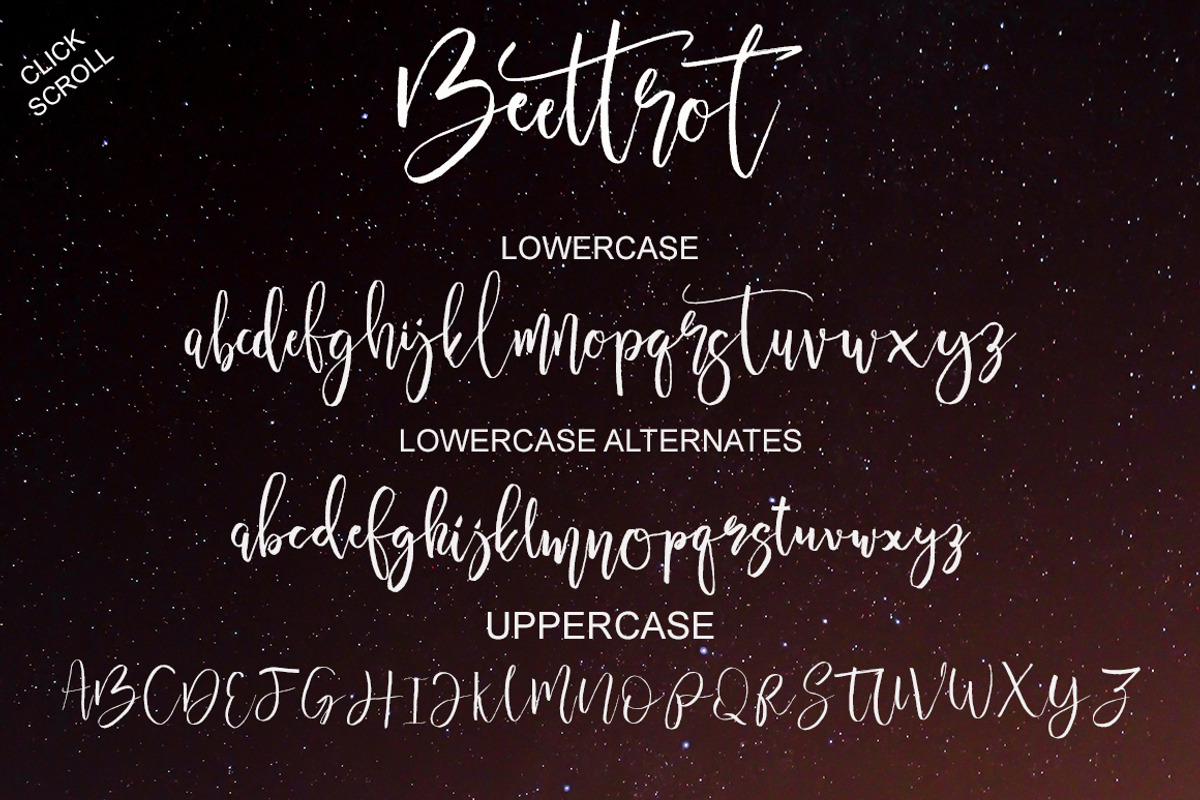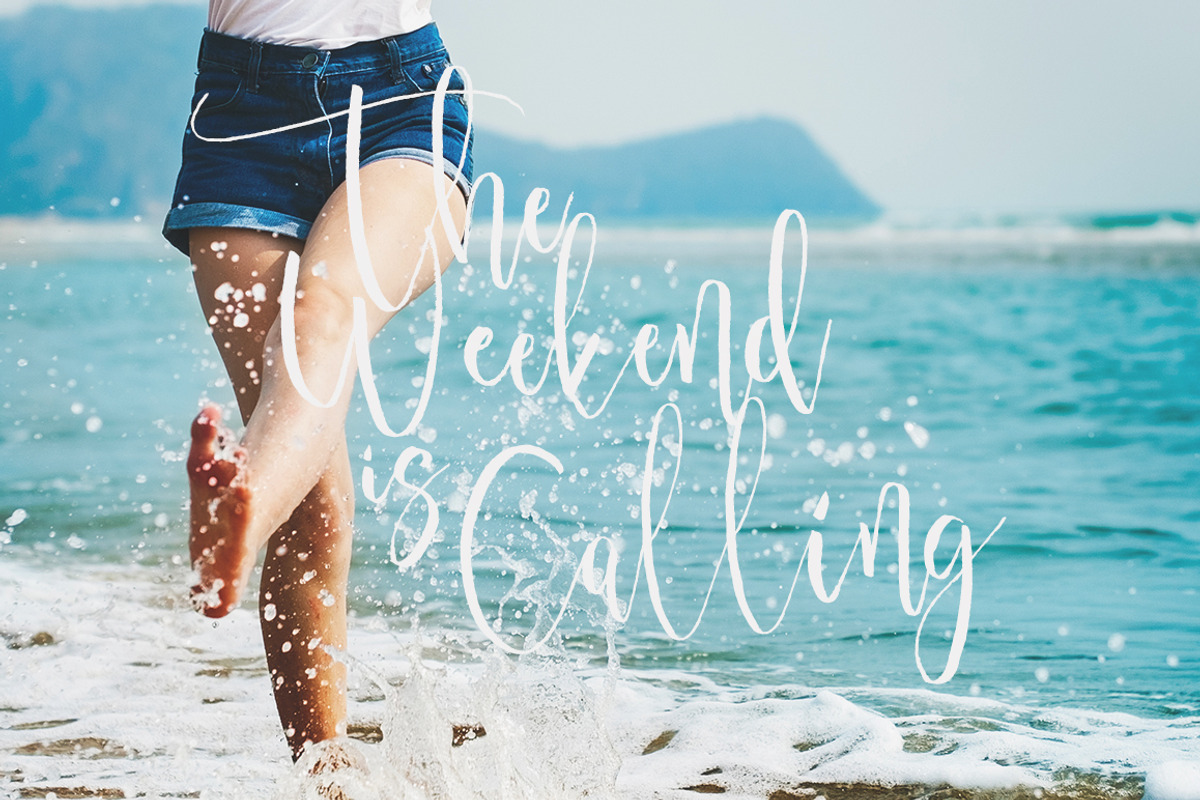
Beettrot
Beettrot is brush script font. With modern script style this font will perfect for many different project ex: quotes, blog header, poster, wedding, branding, logo, fashion, apparel, letter, invitation, stationery, etc.